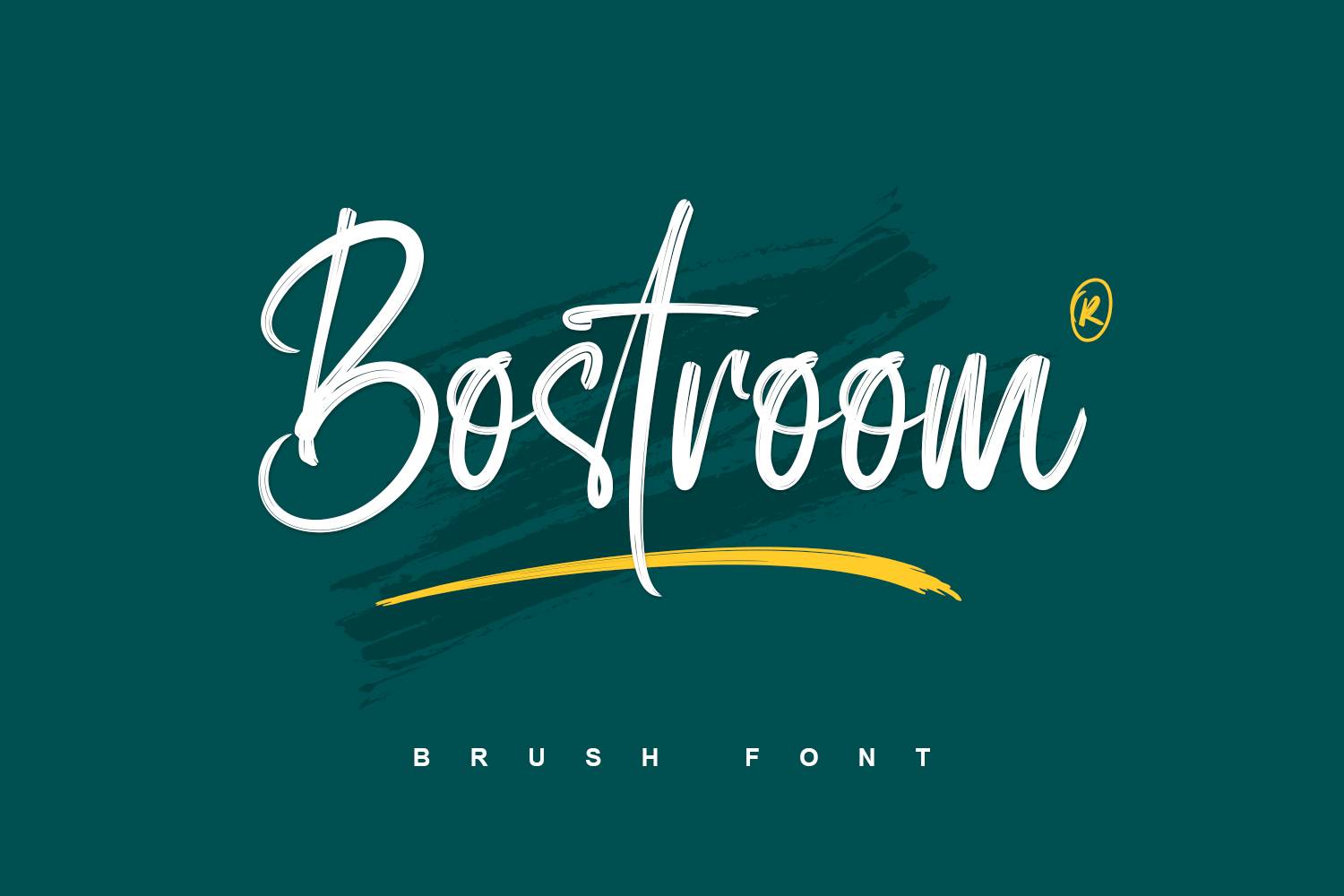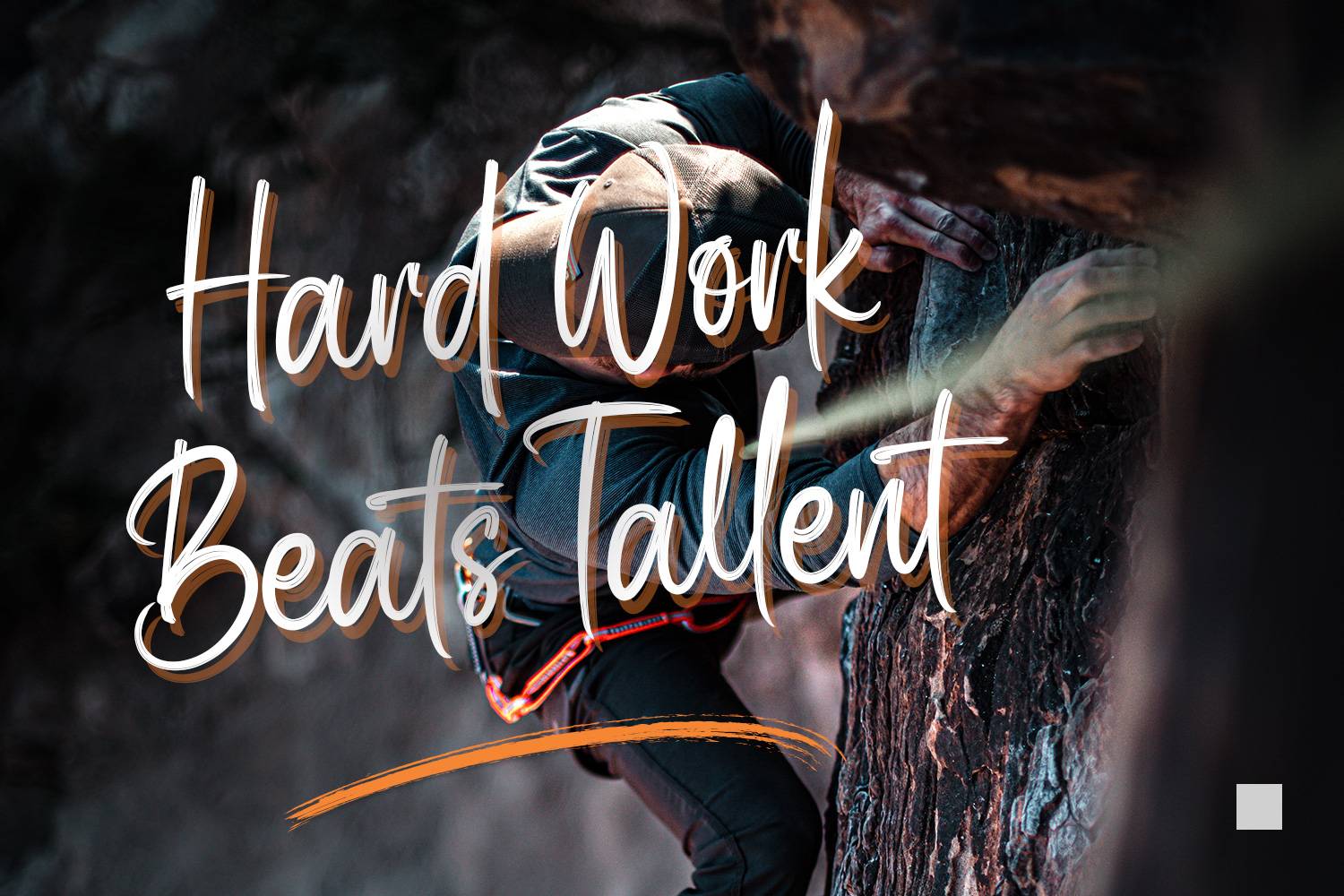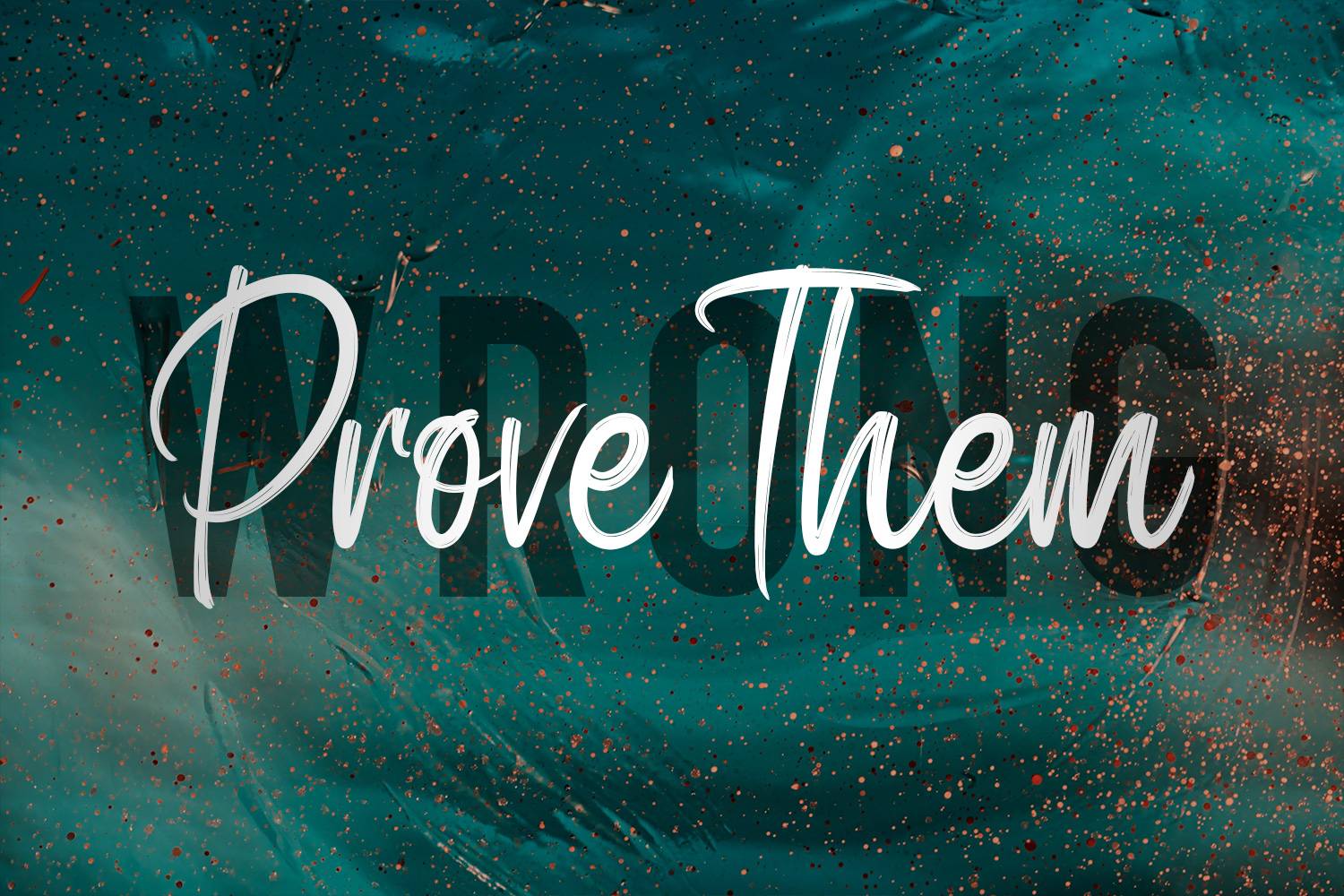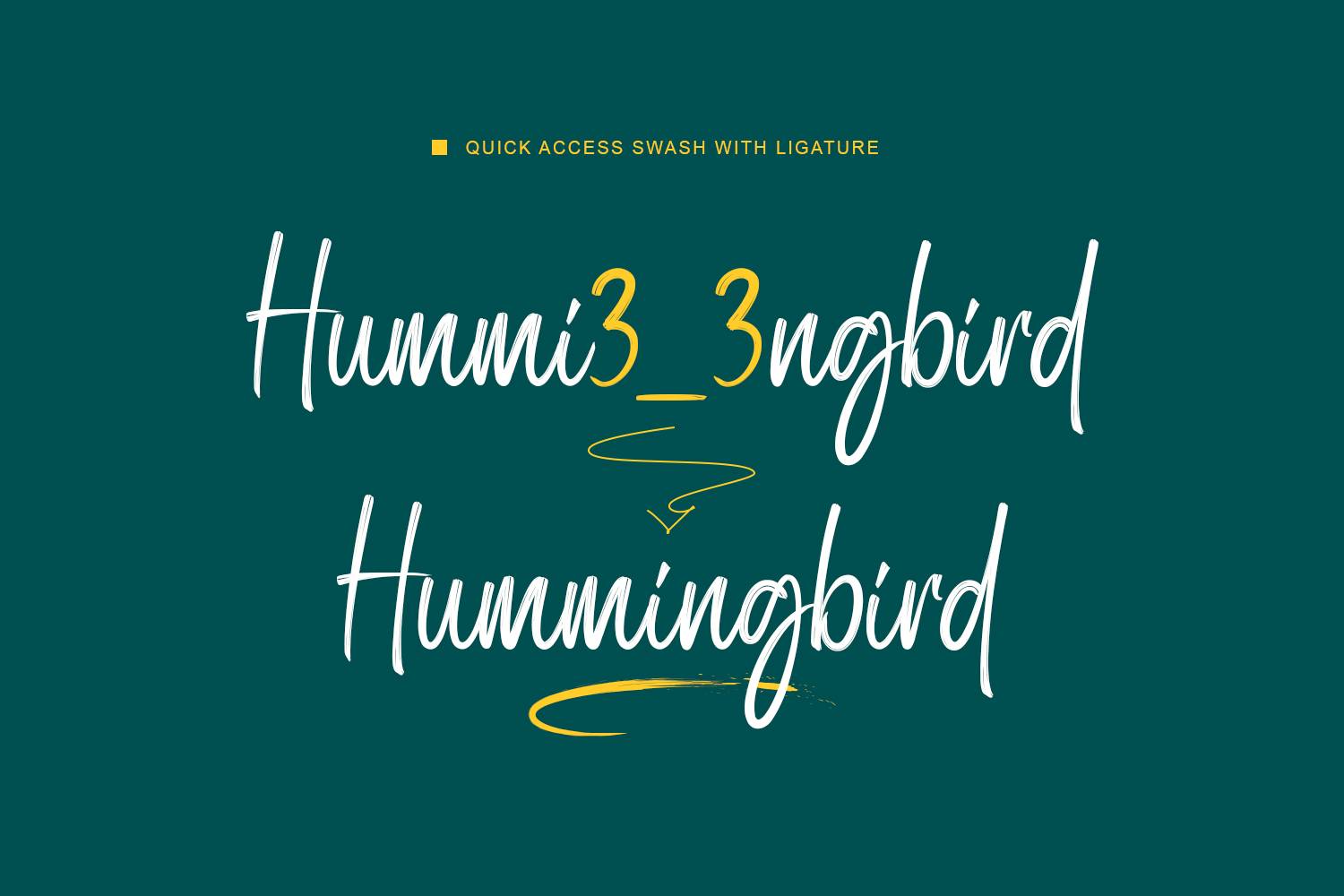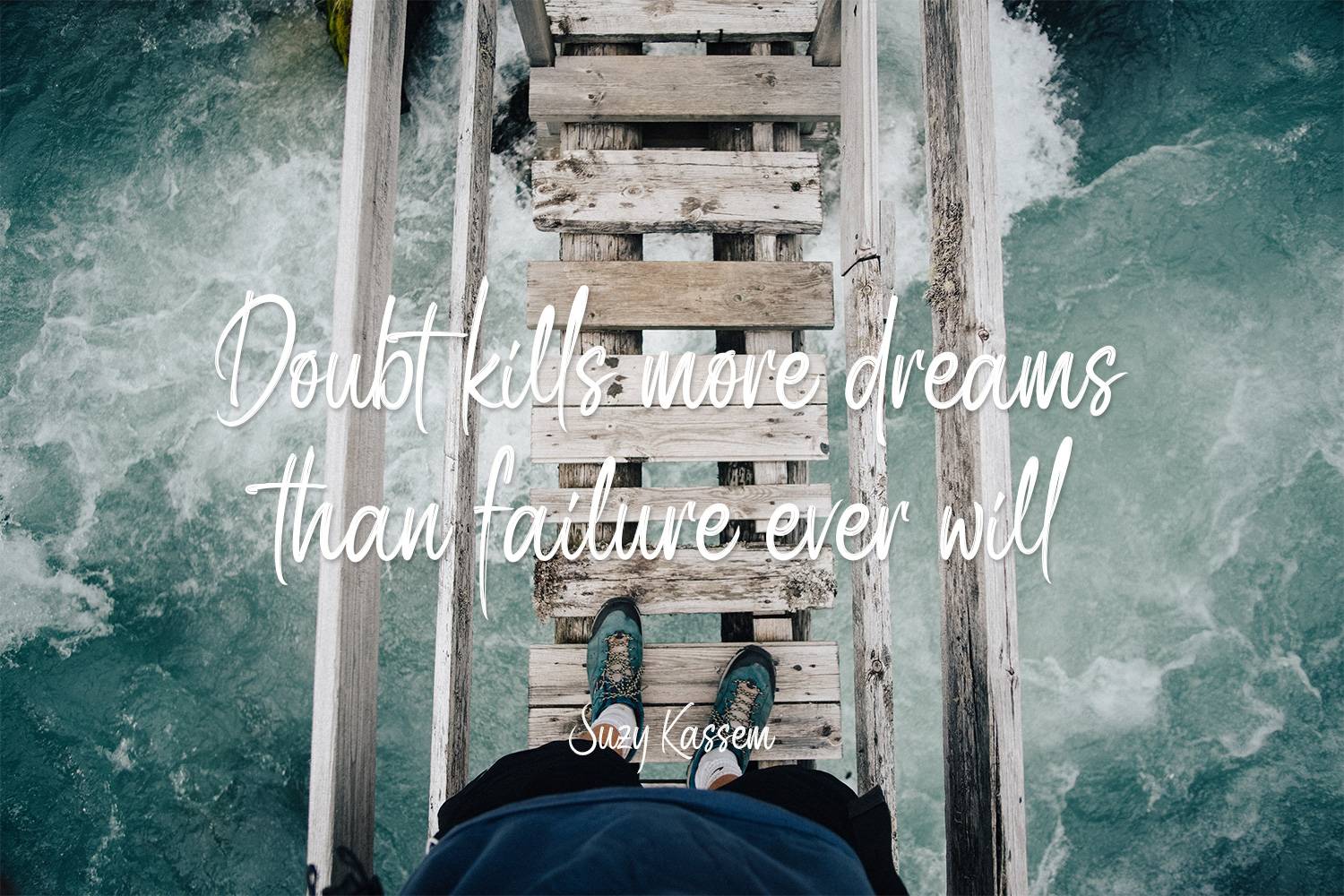
Bostroom is a stylish, handwritten script font with a lively and elegant feel, featuring tall, narrow letterforms with smooth, flowing strokes and moderate contrast. Its slightly playful yet refined character makes it perfect for creative branding, invitations, and modern editorial use where a personal, artistic touch is desired. This font works well in headlines or display settings, adding warmth and personality without sacrificing readability.
Bostroom Font
About Bostroom Font